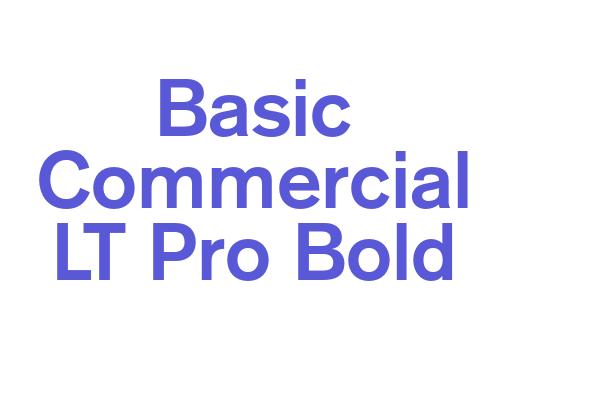
Basic Commercial LT Pro Bold is a clean and modern sans serif font designed by Linotype Design Studio. With its bold weight, this font is perfect for making a strong statement in headlines, logos, and branding materials. Its simplicity and versatility make it an ideal choice for a wide range of design projects that require a bold and impactful look.
Font Name: Basic Commercial LT Pro Bold
Designer: Linotype Design Studio
Font Family: Basic Commercial LT Pro